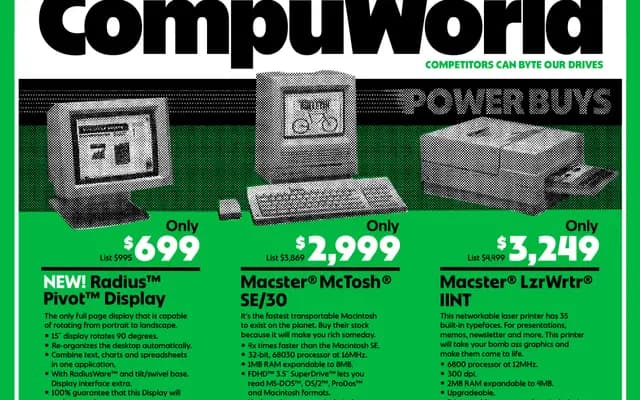
Nuform Sans
A five-weight sans-serif designed as the text companion to Nuform Type's display face OZIK, built for reliable everyday use.
A functional sans family in five weights from Regular to Bold, designed to pair with the display typeface OZIK. The family is positioned as a versatile workhorse, equally capable of supporting display use or handling body text with understated character. The limited weight range and absence of italics keeps it lean and focused.
The clean, even strokes and functional character suggest a geometric or neo-grotesque sans, positioned as a dependable workhorse companion to a display typeface.